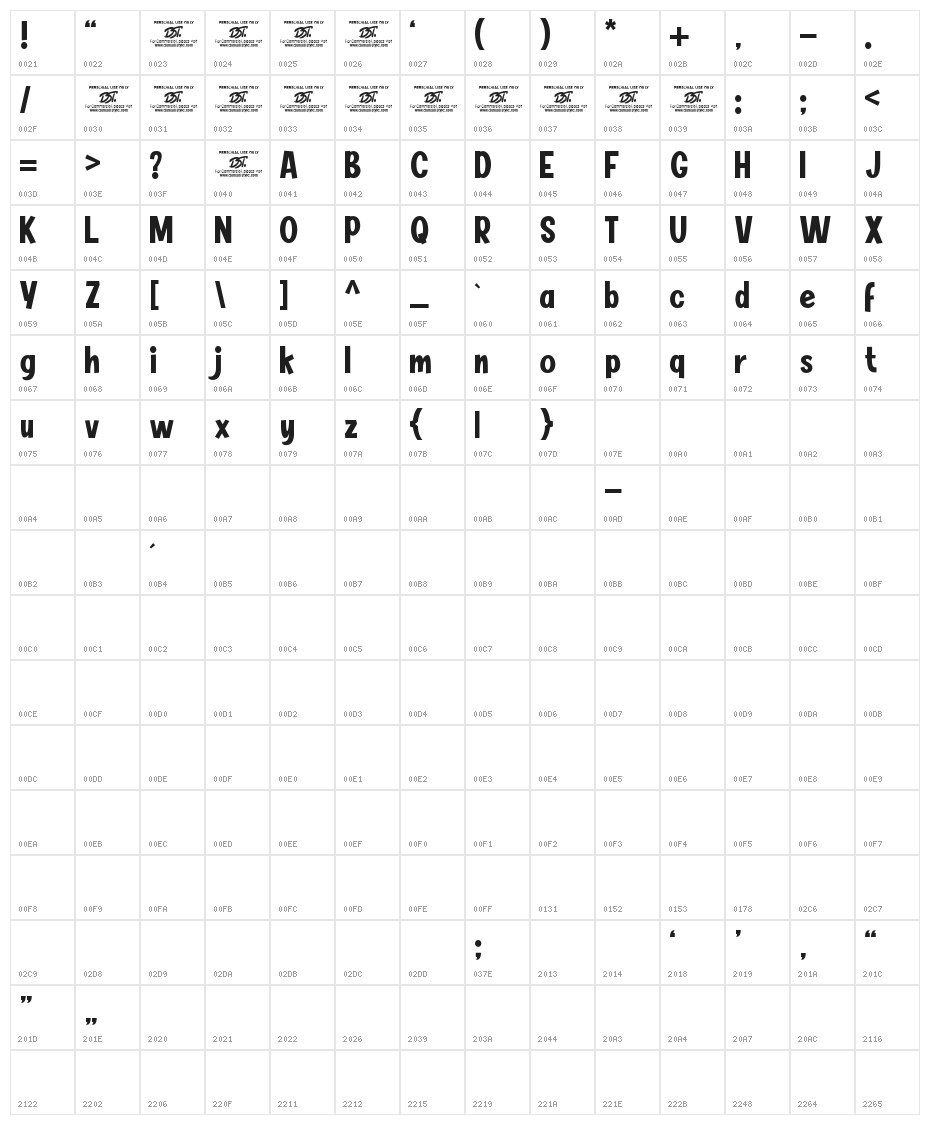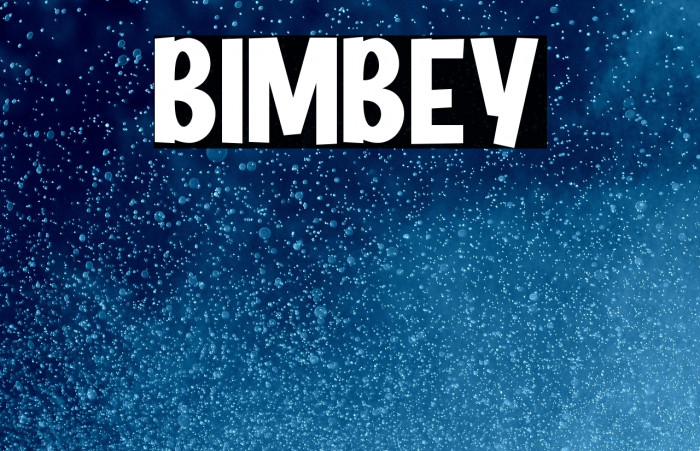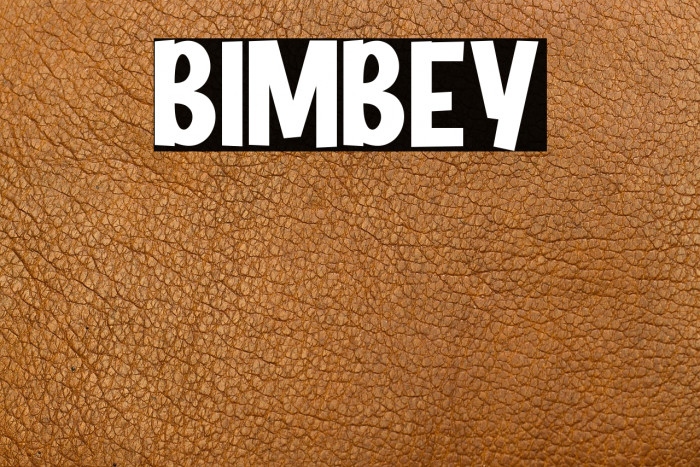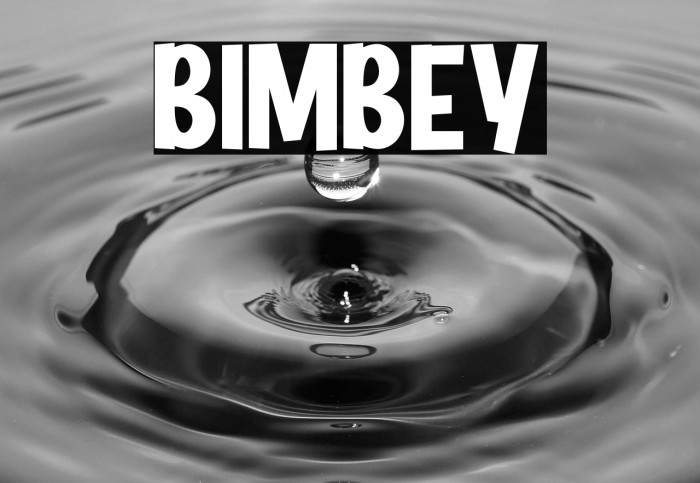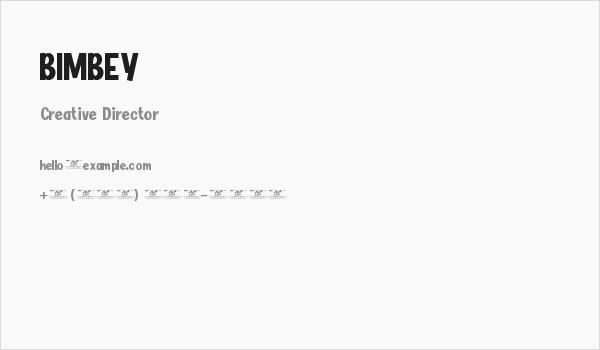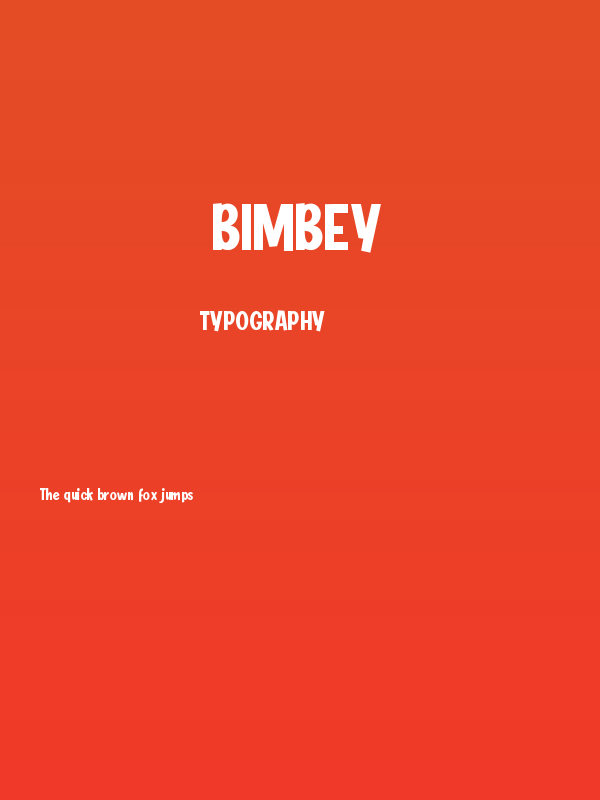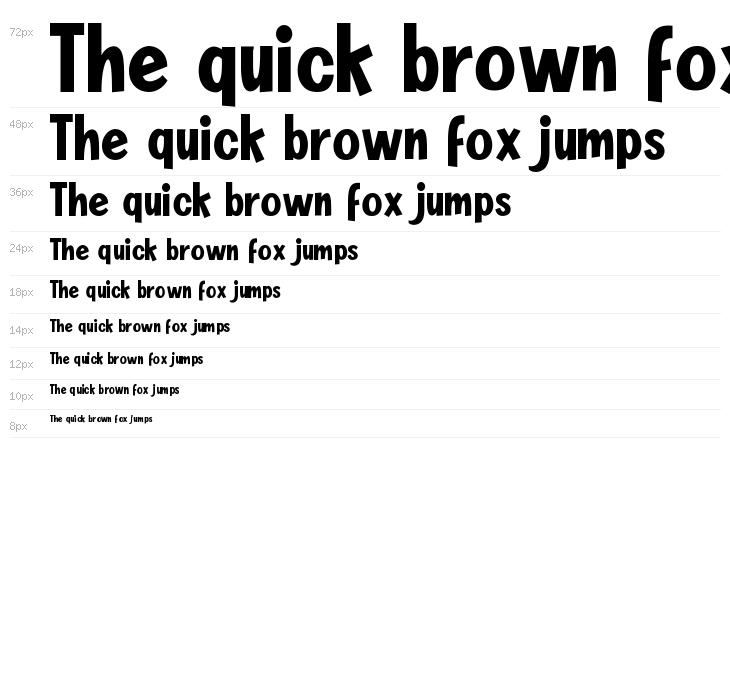
BIMBEY Font
BIMBEY Description
This font features bold, thick strokes with a strong presence, making it ideal for attention-grabbing headlines and titles. The characters are uniformly wide, with a slight curvature that adds a touch of playfulness to the overall design. The uppercase letters are particularly striking, with a consistent height and width that ensures readability. The lowercase letters maintain the same boldness, providing a cohesive look across different text sizes. The numbers and special characters are designed to match the bold style, ensuring a seamless integration into any project.